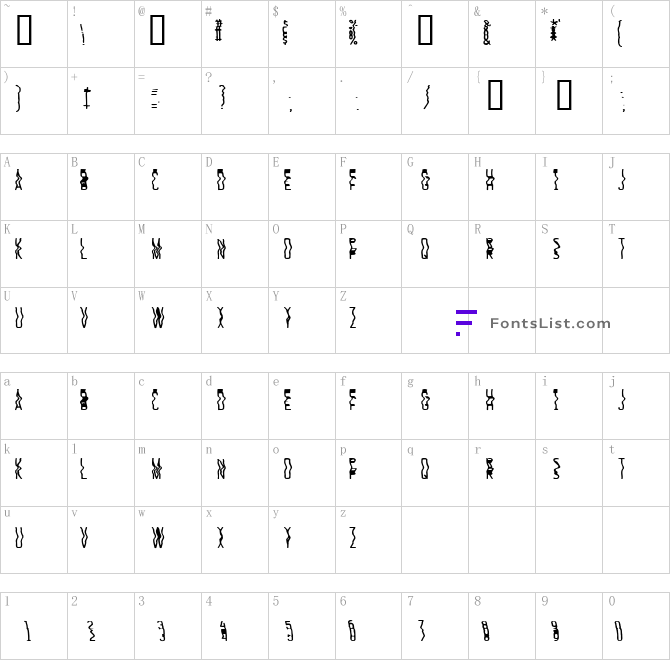
- Font Name:accient
accient.ttf is a very beautiful artistic font, accient.ttf is widely used in the design and printing of various books and pictures,accient.ttf has a strong visual impact,accient.ttf is a commonly used font in newspapers, magazines and books, and is used in posters, e-commerce Poster design, store design, logo design, font design and other fields.accient.